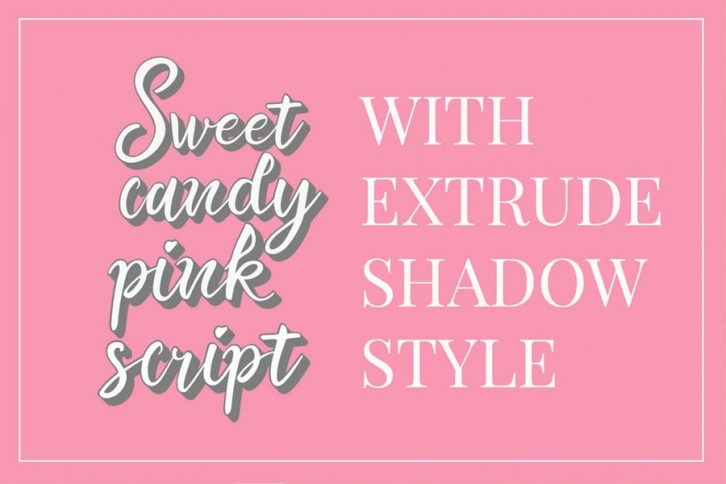
Extrude Shadow Style for Sweet Candy Pink Script a beautiful modern calligraphy font, Comes with 2 layered font handwritten, sophisticated flows. Sweet Candy Pink Script offers beautiful typographic harmony for a diversity of design projects, signature, stationery, logo, typography quotes, including logos & branding, wedding designs, social media posts, advertisements & product designs.
"Sweet Candy Pink Script" includes full set of lovely uppercase and lowercase letters, multilingual symbols, numerals, punctuation and ligatures.